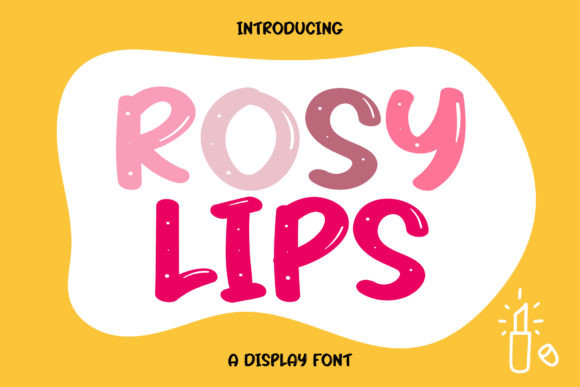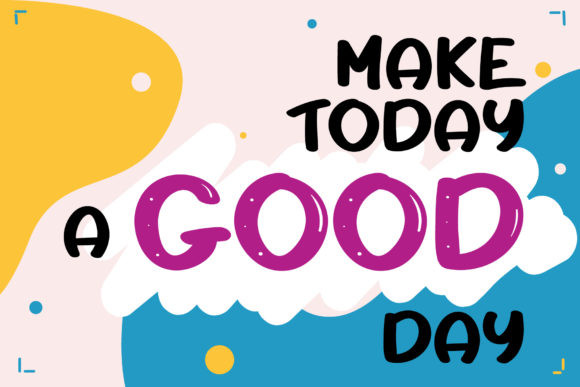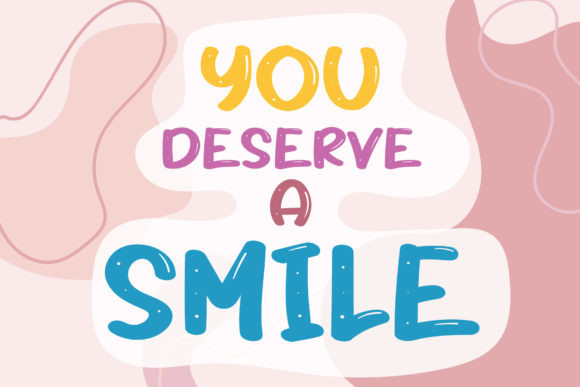
Rosy Lips Font
Rosy Lips is a cool and trendy display font. Thick lettered and a bit quirky, this font will brighten up each of your informal or casual designs.